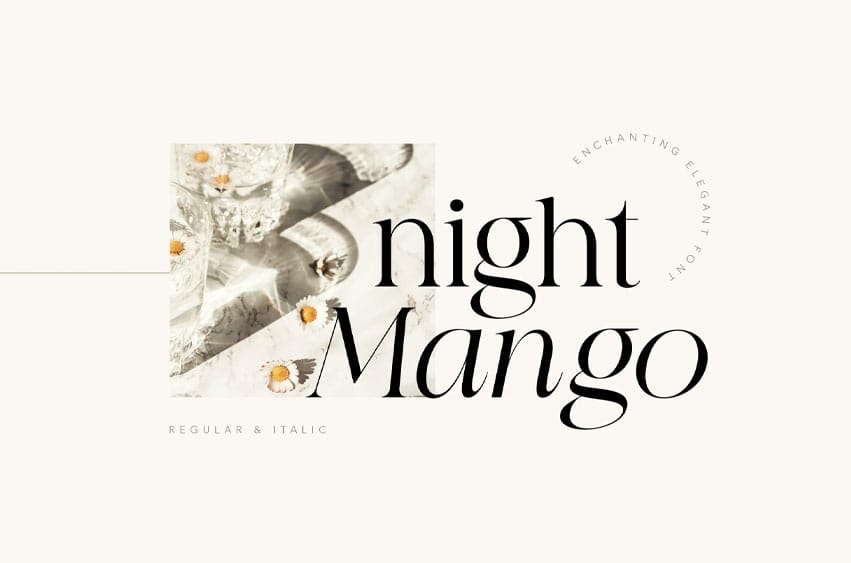
Night Mango Font is an elegant business serif font. Comes with regular and italic versions. This font makes a harmonious combination for your modern and classic layouts.
Perfect for any luxury design, like a hotel logo, restaurant menu, restaurant poster, or web, wedding invitation, and many others